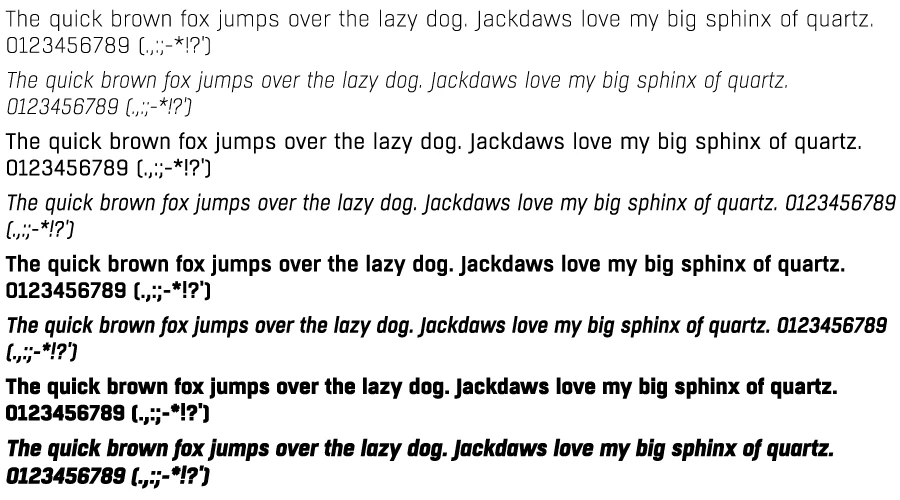
Boxed Font! A sans serif typeface with 18 different styles in it. This brightly designed font looks very good as a screen font on a monitor and in digital printing too. The semi-modular geometric style of this font makes it perfectly responsive to the grid of the screen pixels, which delivers a fluid reading level to the readers.
This boxed textured font with 18 different styles is perfect for any video game or mobile application. Its unique and clear appearance would add extra beauty to any design. Such as logos, visiting cards, stadium brandings, banners, posters, etc.
This font is also eligible to be used for official purposes too. You may use this on official branding, titles of your presentations, documents, printings, etc.
| Name | Boxed Font |
| Style | Sans-serif |
| Author | Josep Patau, Tipo Pèpel. |
Font Family
- Boxed.
- Boxed Italic.
- Boxed Bold.
- Boxed Bold Italic.
- Boxed Italic.
- Boxed Light.
- Boxed Extra Light.
- Boxed Light Italic.
- Boxed Thin.
- Boxed Thin Italic.
- Boxed Book.
- Boxed Book Italic.
- Boxed Medium.
- Boxed Medium Italic.
- Boxed Semibold.
- Boxed Semibold Italic.
- Boxed Heavy.
- Boxed Heavy Italic.
What type of font is Boxed?
Ans: Boxed is a sans-serif typeface font.